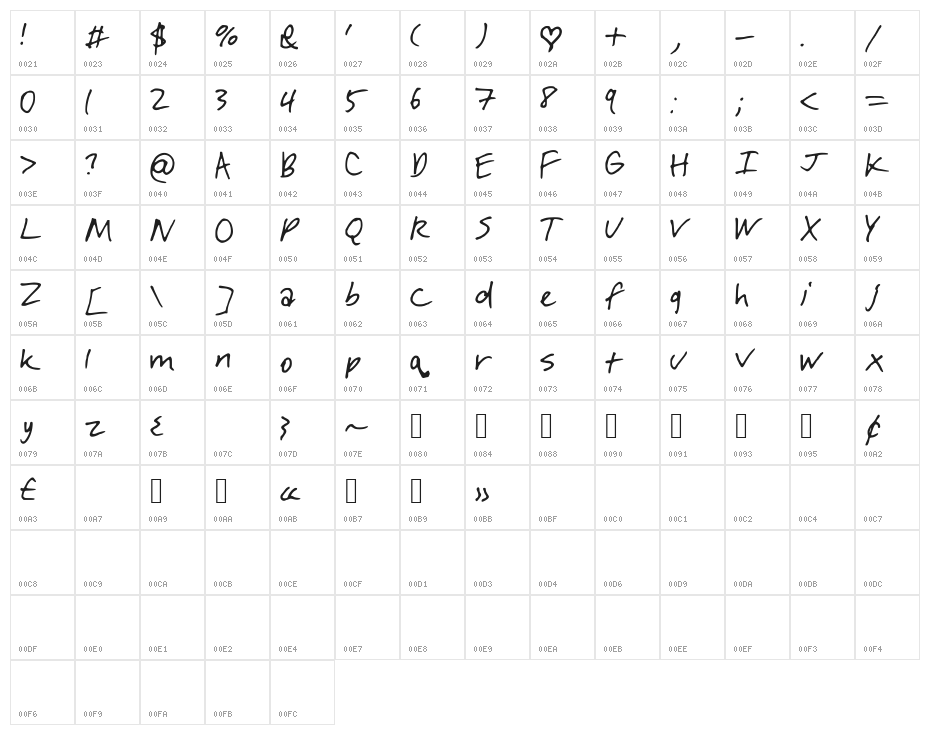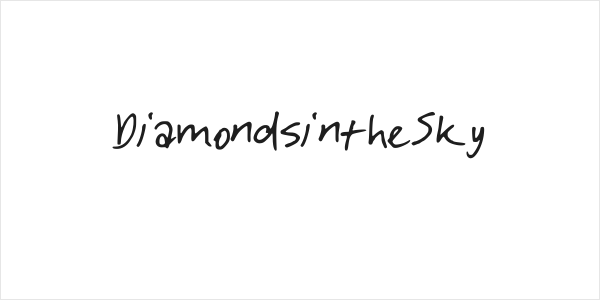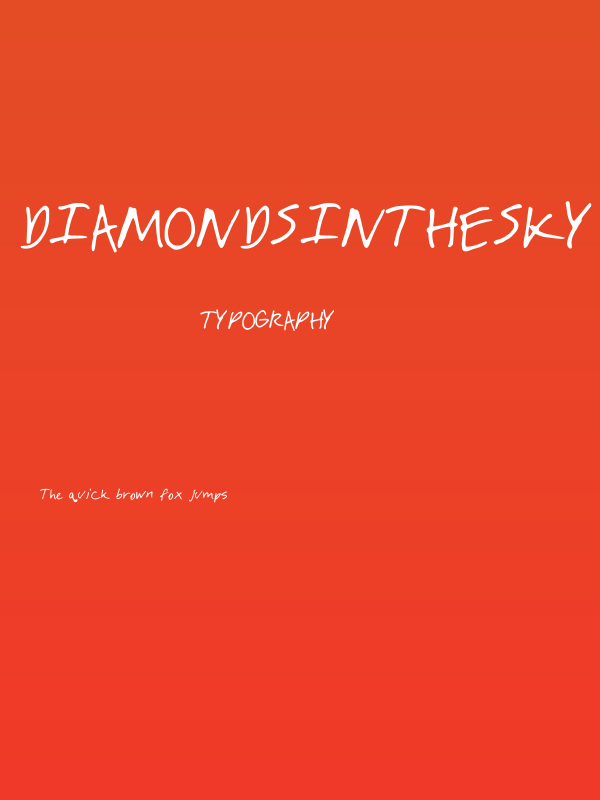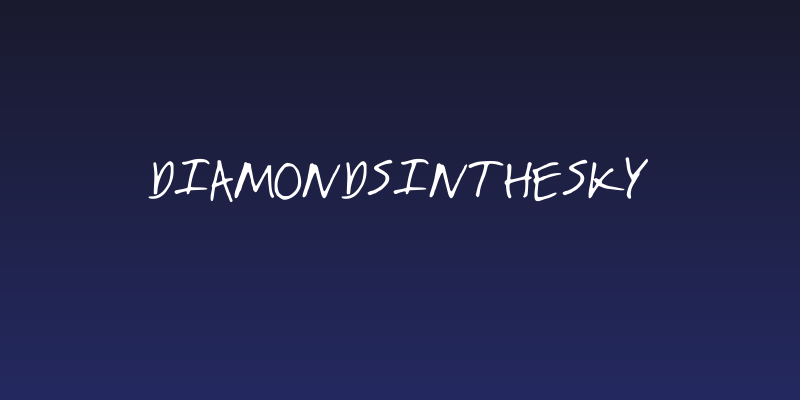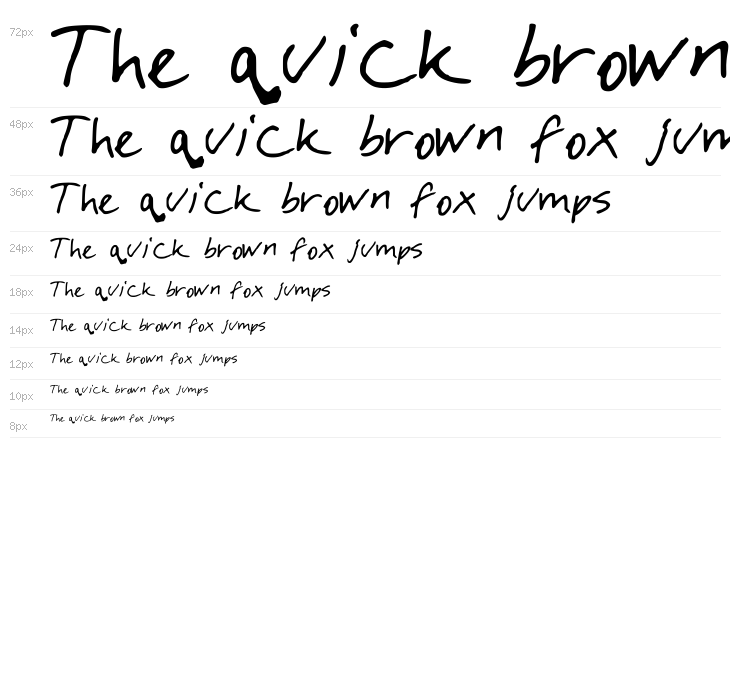
DiamondsintheSky Font
DiamondsintheSky Description
This font exudes a casual and playful handwritten style, characterized by its fluid and dynamic strokes. The letters are slightly slanted, giving it an informal and approachable feel. The uppercase and lowercase letters maintain a consistent flow, with rounded edges and varying stroke widths that add to its organic appearance. The numbers and special characters follow the same handwritten aesthetic, ensuring a cohesive look across all elements. This font is perfect for projects that require a personal touch, such as greeting cards, invitations, or creative branding materials.
Overall StyleCasual, Playful
Use CaseHeadlines, Creative projects, Personal branding
Proposed ProjectsIdeal for greeting cards, invitations, personal branding, and creative projects.